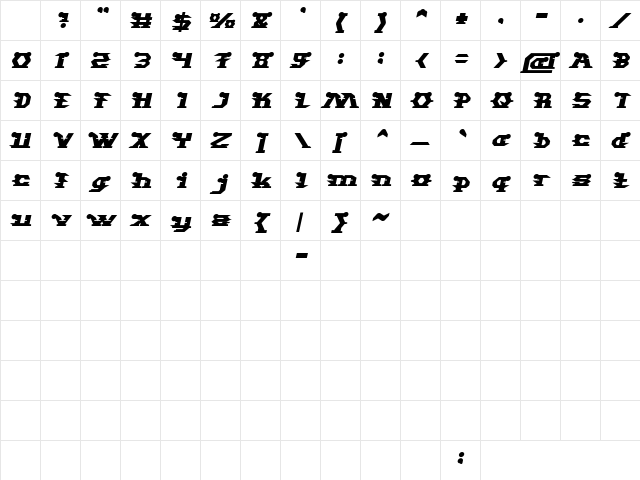
STARGAZER is a composed and adaptable typeface that performs quietly and consistently across a wide range of design contexts. The slanted form adds forward momentum and visual energy. Its bold stroke weight gives it real presence on the page.